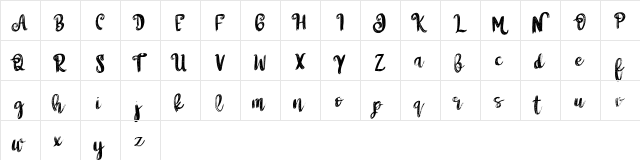
Witch girls FREE Regular
Design Context for Witch girls FREE Typeface
Witch girls FREE is a composed and adaptable typeface that performs quietly and consistently across a wide range of design contexts.